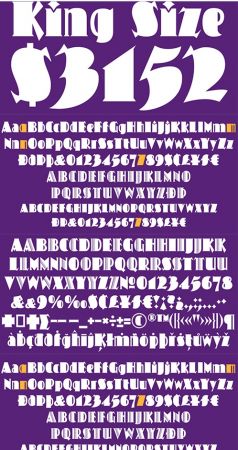
DesignOptimal - Valet font family
Valet™ is deco moderne the way it was meant to be: Big, bold, classy, flashy, and clean at the seams. Its message is rich, strong,
confident and reliable. Valet tells you that it’s used to thorns being part of every rose, that it can handle sharp
objects just fine, and that it'd much prefer buying the tuxedo rather than renting it.